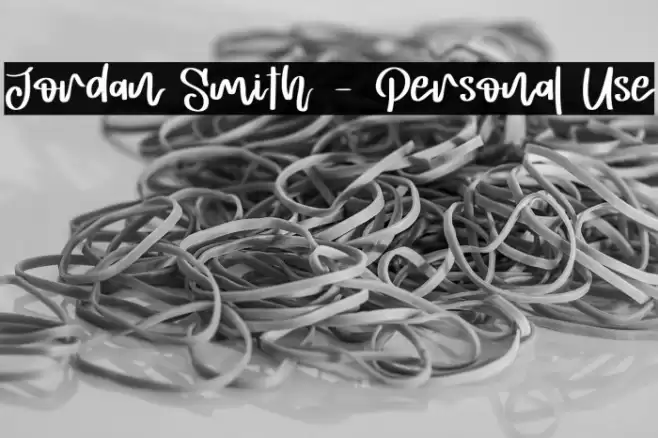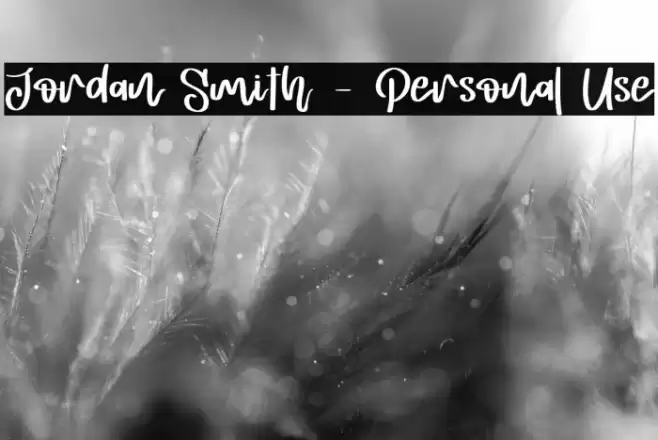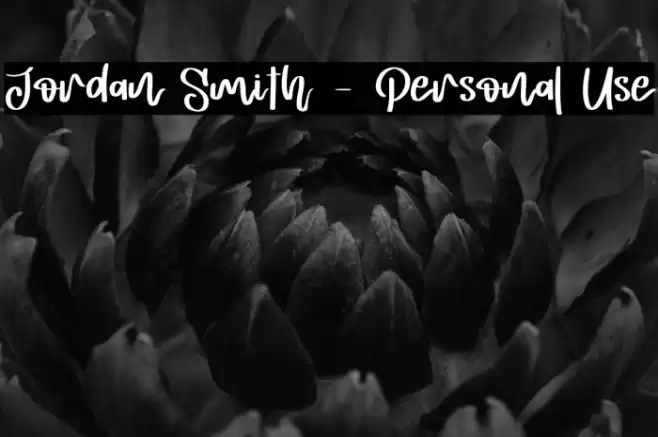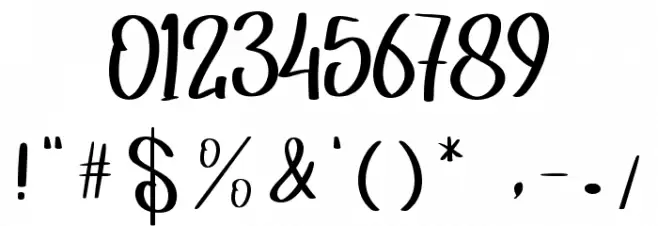
Jordan Smith - Personal Use Font
Jordan Smith - Personal Use Description
This font features a lively and flowing script style, characterized by its bold and expressive strokes. The letters are interconnected with smooth curves, giving it a handwritten appearance that exudes personality and charm. The uppercase letters are slightly more structured, while the lowercase letters maintain a playful and casual feel. The numerals and special characters are consistent with the overall style, ensuring a cohesive look across all text. This font is perfect for projects that require a personal touch or a creative flair.
A bold, expressive script font with a lively, handwritten style from Uncategorized fonts.
- Proposed Projects: Ideal for wedding invitations, greeting cards, branding, and social media graphics.
- Use Case: Logos, Headlines, Invitations